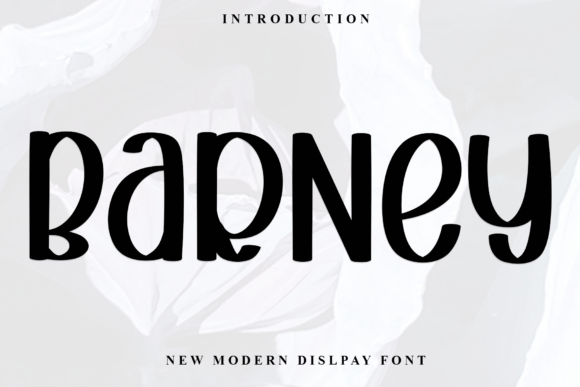
Discover the Timeless Charm of Barney Font
Have you ever stared at a blank page, waiting for the perfect font to bring your creative vision to life? For designers, the search for the ideal typeface can be a daunting task, but what if I told you that you’ve just found your new go-to companion? Meet Barney Font, the epitome of elegance and sophistication.
This stunning display font is perfect for crafting logos, branding materials, and even social media posts that exude refinement and poise. With its PUA encoding, accessing the intricate glyphs and ligatures is a breeze, allowing you to unleash your full creative potential. Whether you’re working on a high-end wedding design or a stylish invitation, Barney Font is sure to elevate your project to new heights.
Key Features of Barney Font
- Font Family: Barney is a sans-serif font family designed for digital use, ideal for various applications including signage, wayfinding, and digital displays.
- Size: The font family includes a range of weights, from Thin (100) to Extra Bold (800), catering to various design needs and visual hierarchies.
- Unique Characteristics: The font features a distinctive, rounded edge aesthetic, making it easily recognizable and memorable. Its clean and simple design ensures high legibility, even at small font sizes.
- Characteristics for Digital Use: Barney is designed with digital use in mind, featuring advanced features such as ligatures, fractions, and discretionary ligatures to ensure optimal readability in digital environments.
Barney Font Review
I recently had the chance to work with the Barney font, and I must say it’s an interesting choice. While it may not be the most conventional font, it has its own unique charm. ✨ The rounded edges and friendly demeanor make it perfect for children’s content, educational materials, or even playful advertising campaigns. It’s a great option if you’re looking for a font that’s approachable and non-threatening.
One of the things I appreciate about the Barney font is its versatility. ✨ It comes in a range of weights and styles, making it easy to customize and adapt to different design contexts. Additionally, the font is highly legible, even at small font sizes, which is a must for any font.
However, there are a few limitations to consider. ⚠️ The font’s rounded edges can sometimes make it look a bit childish or immature, which may not be suitable for all audiences. Additionally, the font’s weight range may not be as extensive as some other fonts on the market.
Overall, I think the Barney font is a solid choice for designers looking for a friendly and approachable font. While it may not be the most sophisticated option, it’s a great option for projects that require a playful or educational tone.
- Unique, rounded edges
- Highly legible, even at small font sizes
- Range of weights and styles available
- Perfect for children’s content, educational materials, or playful advertising campaigns
Practical Application Guide: Barney Font
Tips: Use Barney Font for titles and headings to add a playful touch to your design. Experiment with different font sizes and colors to create visual interest.
Tips: Use Barney Font for illustrations and graphics to add a whimsical touch. Experiment with different font sizes and colors to create depth and dimension.
Tips: Use Barney Font for titles and headings to add a playful touch to your presentation or document. Experiment with different font sizes and colors to create visual interest.
Barney Font is commonly used in:
Children’s educational materials
Party invitations and decorations
Whimsical illustrations and graphics
Tips: Use Barney Font in creative and playful ways to add